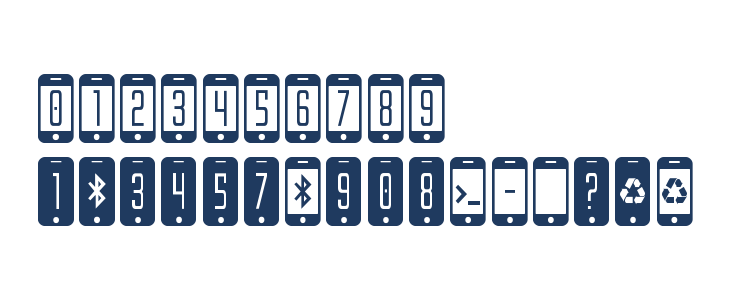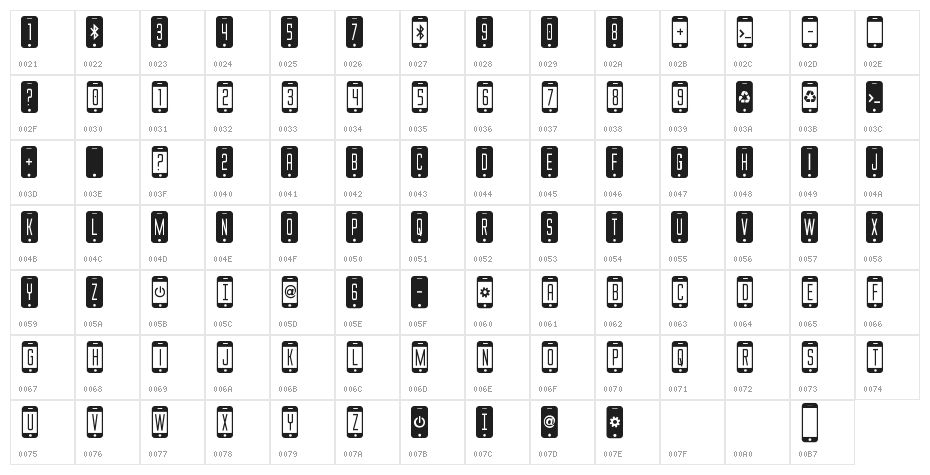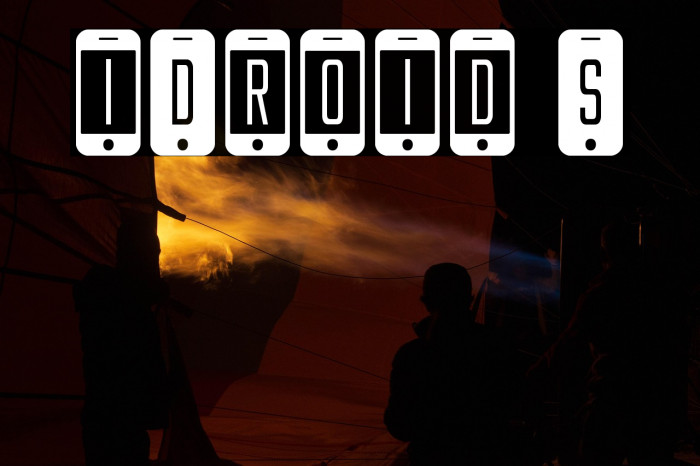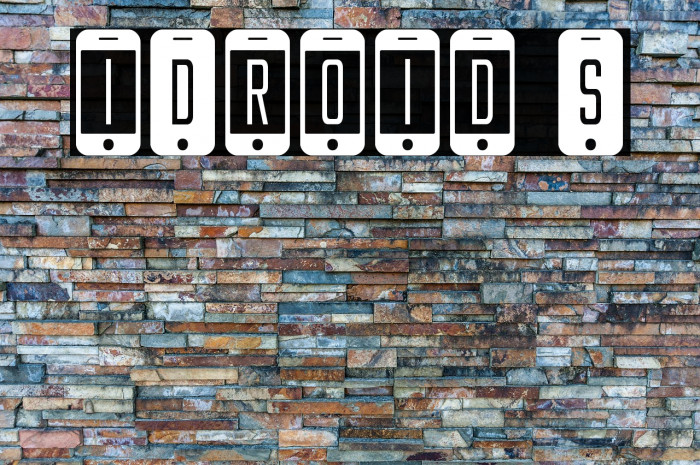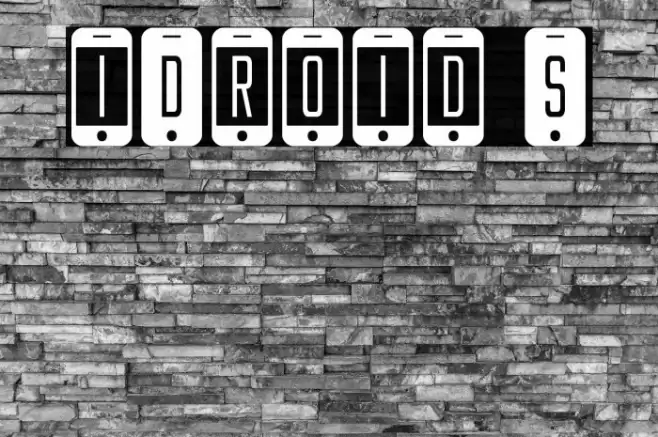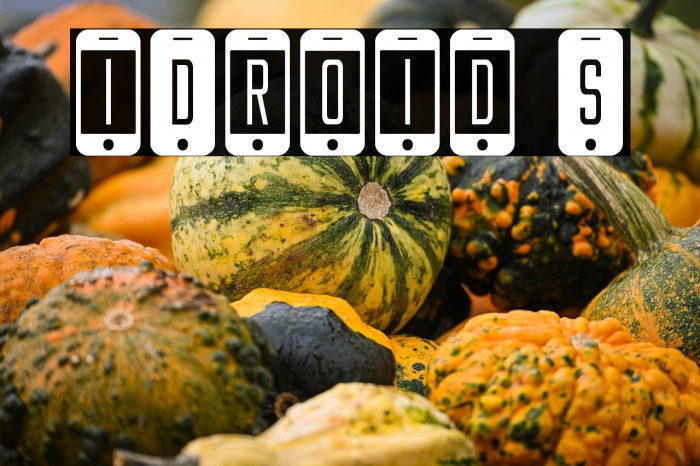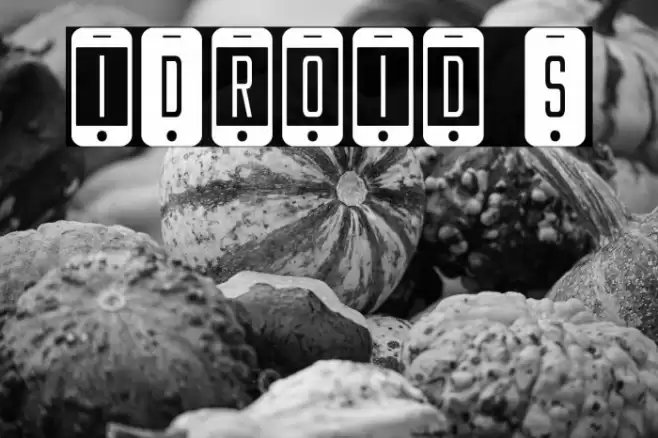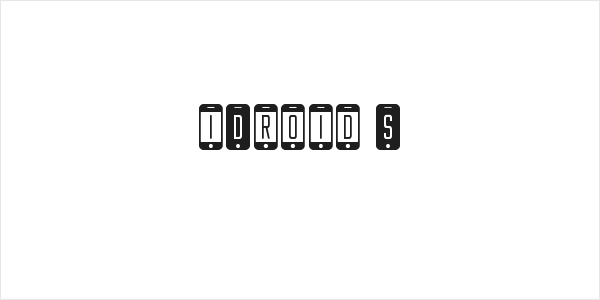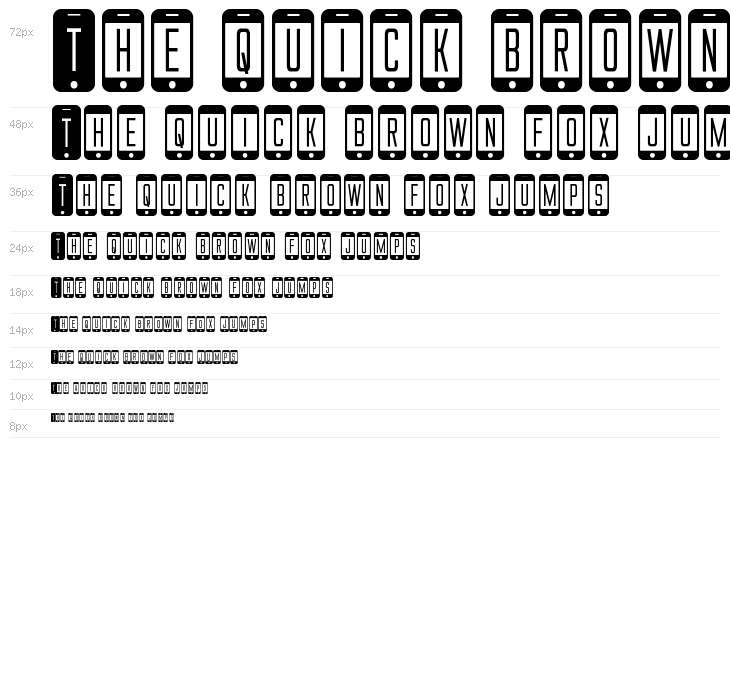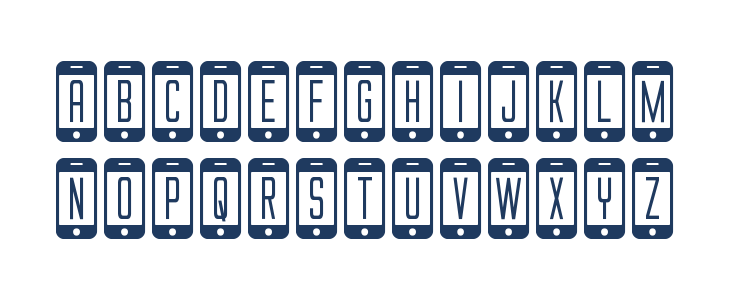
iDroid S Font
iDroid S Description
This font features a unique design where each character is enclosed within a smartphone-like shape, complete with a circular button at the bottom. The letters and numbers are bold and geometric, offering a modern and tech-inspired aesthetic. The uppercase letters are consistent in height and width, providing a uniform appearance. The numbers follow the same design principle, ensuring readability and style. Special characters are also included, maintaining the same enclosed design, which adds to the cohesive look of the font. This font is ideal for projects that require a futuristic or digital theme.
| Use Case | Logos, Headlines, Digital Interfaces |
| Proposed Projects | Ideal for tech-related branding, app design, digital marketing materials, and futuristic-themed projects. |